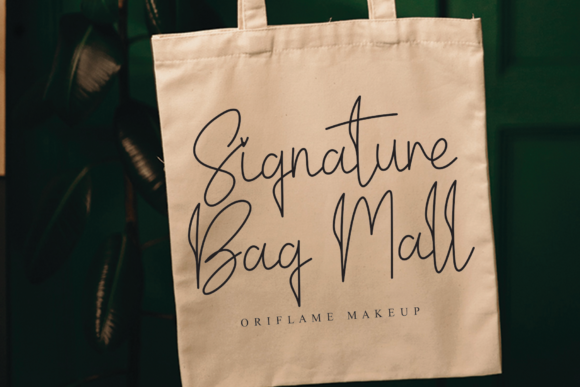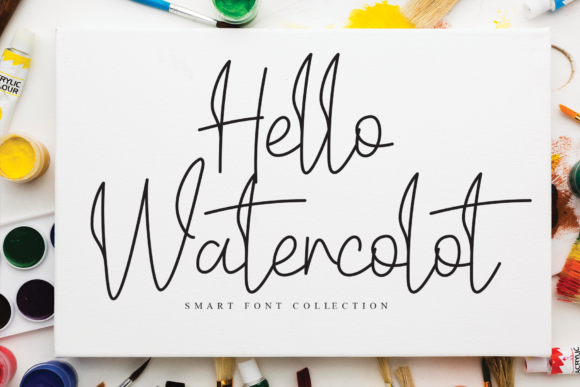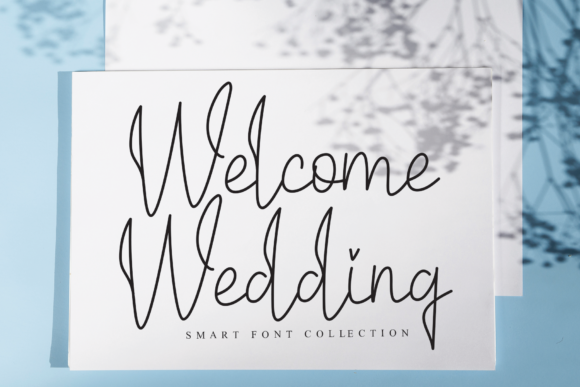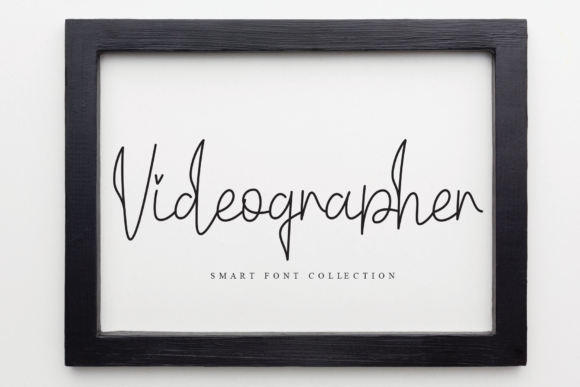
Introducing Delightful Font: Elevate Your Designs with Elegance
Are you on the hunt for a font that adds a touch of sophistication and charm to your designs? Look no further than Delightful Font, a stylish and delicate script font that’s sure to captivate your audience. With its clean, thin, and smooth vibe, Delightful Font is the perfect addition to any design project, from branding and advertising to crafting and DIY tutorials.
The Characteristics of Delightful Font
Delightful Font boasts a unique set of characteristics that make it stand out from the crowd. Its slender lines and curves create a sense of elegance and refinement, making it ideal for designs that require a touch of sophistication. The font’s smooth texture and clean lines ensure that it remains legible even at smaller sizes, making it versatile for use in a variety of applications.
Why Designers Love Delightful Font
Designers adore Delightful Font for its versatility and aesthetic appeal. Here are just a few reasons why:
- Elegant and Refined: Delightful Font adds a touch of sophistication to any design, making it perfect for high-end branding, luxury packaging, and elegant stationery.
- Clean and Legible: The font’s clean lines and smooth texture ensure that it remains easy to read, even at smaller sizes.
- Versatile: Delightful Font is suitable for a wide range of design applications, from digital graphics to print materials.
- Easy to Pair: The font’s neutral tone makes it easy to pair with other fonts, allowing you to create stunning typography combinations.
Crafting and DIY Applications
Delightful Font is not just limited to digital design; it’s also perfect for crafting and DIY projects. Whether you’re creating handmade cards, scrapbooking, or designing custom iron-on transfers, Delightful Font adds a touch of elegance and whimsy to your projects.
Here are some popular crafting and DIY applications for Delightful Font:
- Handmade Cards: Add a touch of sophistication to your handmade cards with Delightful Font.
- Scrapbooking: Use Delightful Font to create beautiful journaling and captions for your scrapbooking projects.
- Custom Iron-on Transfers: Add a touch of elegance to your custom iron-on transfers with Delightful Font.
Tips for Using Delightful Font
To get the most out of Delightful Font, here are some tips to keep in mind:
- Use it Sparingly: Delightful Font is perfect for headlines, titles, and accents, but use it sparingly to avoid overwhelming your design.
- Pair it with Bold Fonts: Pair Delightful Font with bold fonts to create stunning typography combinations.
- Experiment with Colors: Delightful Font looks beautiful in a range of colors, from soft pastels to rich jewel tones.
In conclusion, Delightful Font is a stylish and delicate script font that’s sure to elevate your designs with elegance and sophistication. With its clean, thin, and smooth vibe, Delightful Font is perfect for a wide range of design applications, from branding and advertising to crafting and DIY projects. Whether you’re a designer, crafter, or DIY enthusiast, Delightful Font is a must-have addition to your font collection.